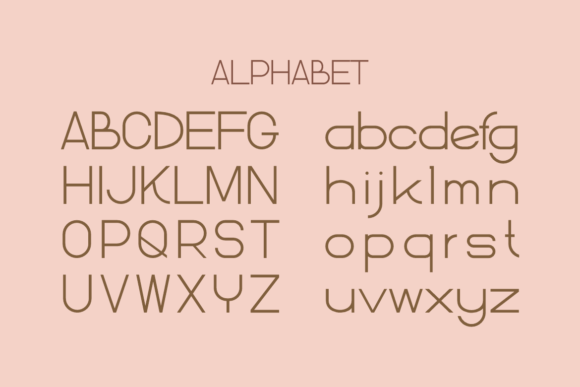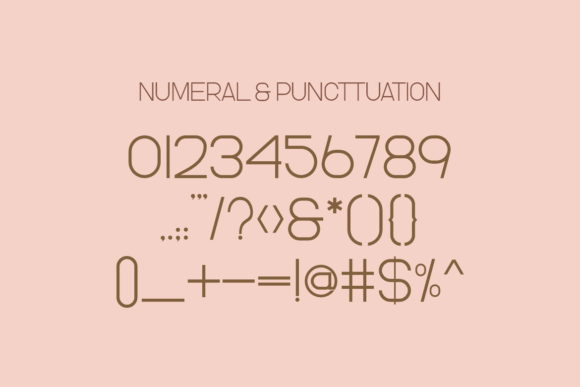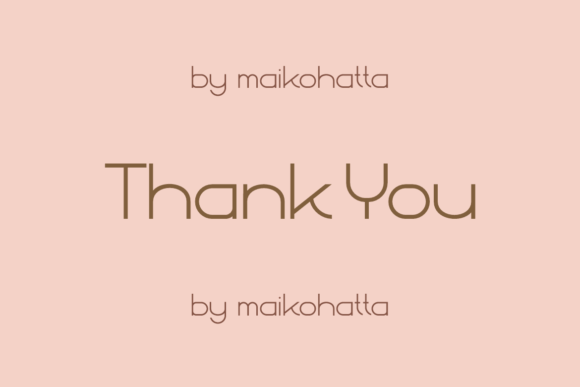
Introducing Goode Font: The Ultimate Sans-Serif for Modern Designers
In the world of typography, a font can make or break a design project. As a designer or crafter, you’re constantly on the lookout for the perfect typeface that can elevate your brand’s visual identity. Look no further than Goode Font, a clear and authentic sans-serif font that’s taking the design world by storm.
What is Goode Font?
Goode Font is a modern sans-serif font designed to provide a clean and authentic look to your branding projects. Its simplicity and elegance make it an ideal choice for a wide range of applications, from logos and t-shirt printing to esports and more. The font’s versatility is unmatched, allowing you to use it in various contexts without compromising on style or legibility.
Key Features of Goode Font
• Clear and Authentic Design: Goode Font boasts a clear and authentic design that’s perfect for creating a strong visual identity for your brand.
• Sans-Serif Style: The font’s sans-serif style gives it a modern and sleek look that’s ideal for designs that require a clean and minimalist approach.
• High Versatility: Goode Font can be used in a wide range of contexts, from digital platforms to print materials, making it a great addition to your design arsenal.
• Easy to Read: The font’s clear and simple design ensures that it’s easy to read, even at small sizes, making it perfect for body text and headings.
Use Cases for Goode Font
Goode Font is an incredibly versatile typeface that can be used in various design projects. Here are some use cases where Goode Font shines:
• Logo Design: Create a stunning logo for your brand with Goode Font. Its clear and authentic design ensures that your logo will stand out in any context.
• T-Shirt Printing: Goode Font is perfect for t-shirt printing, thanks to its bold and easy-to-read design that’s sure to make your message stand out.
• Esports: The font’s modern and sleek design makes it an excellent choice for esports branding, including team logos, jerseys, and marketing materials.
• Digital Platforms: Use Goode Font on your website, social media, or mobile app to create a consistent visual identity that resonates with your audience.
Why Choose Goode Font?
With so many fonts available, why choose Goode Font? Here are a few reasons why Goode Font stands out from the crowd:
• Unique Design: Goode Font’s unique design sets it apart from other sans-serif fonts, making it an excellent choice for designers looking for something fresh and modern.
• Legibility: The font’s clear and simple design ensures that it’s easy to read, even at small sizes, making it perfect for body text and headings.
• Flexibility: Goode Font can be used in a wide range of contexts, from digital platforms to print materials, making it a great addition to your design arsenal.
In conclusion, Goode Font is an exceptional sans-serif font that’s perfect for modern designers and crafters. Its clear and authentic design, versatility, and ease of use make it an excellent choice for a wide range of design projects. Whether you’re creating a logo, t-shirt, or esports branding, Goode Font is sure to elevate your design to the next level. So why wait? Download Goode Font today and experience the power of great typography!